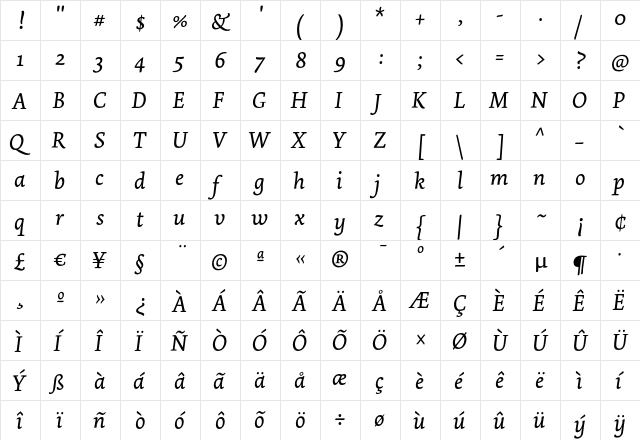
Dolly Italic
Design Context for Dolly Typeface
Dolly offers clean, dependable letterforms without strong stylistic allegiance, making it a practical choice for designers who need flexibility. Its italic angle brings a sense of urgency and motion to the letterforms.
Pro Tip: Try Dolly for annotation and caption copy alongside an upright companion — the contrast in angle creates a dynamic but ordered typographic system.